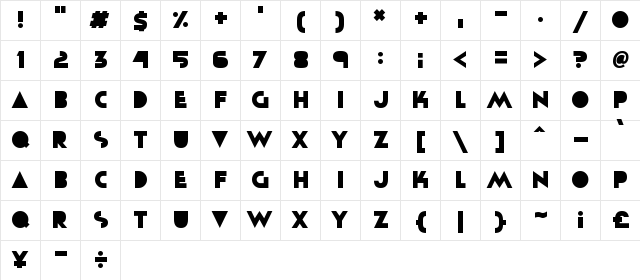
Solid Grooves Regular
Design Context for Solid Grooves Typeface
Solid Grooves offers clean, dependable letterforms without strong stylistic allegiance, making it a practical choice for designers who need flexibility.
Pro Tip: Use Solid Grooves in both headline and body roles to test its range before committing to a single application.